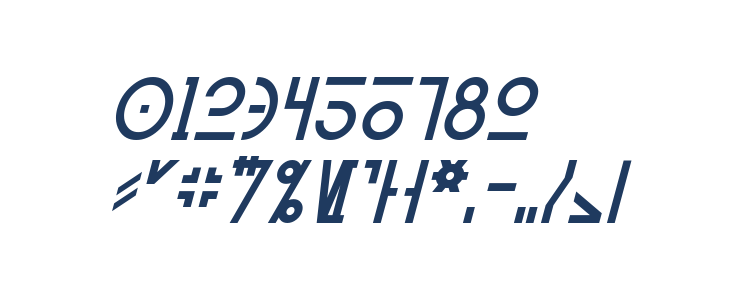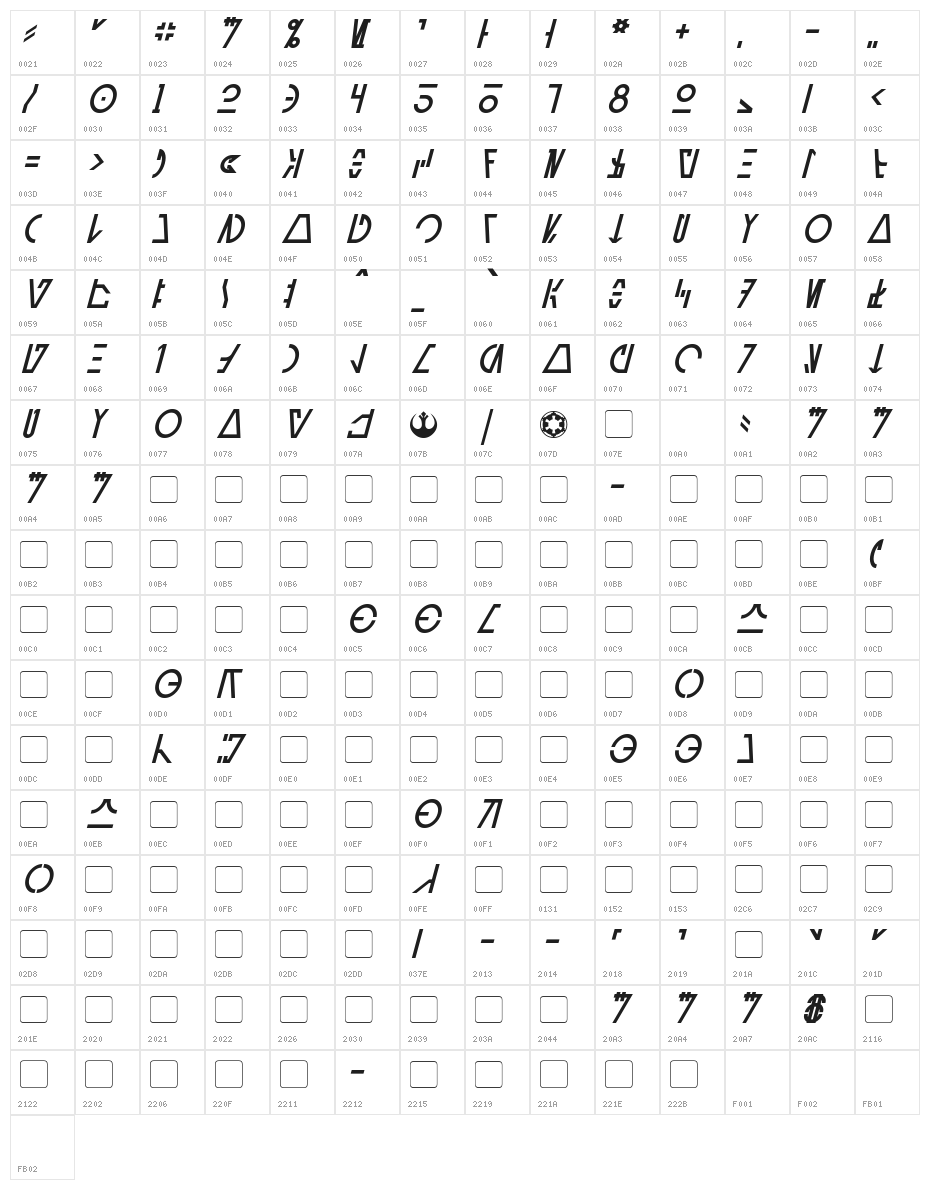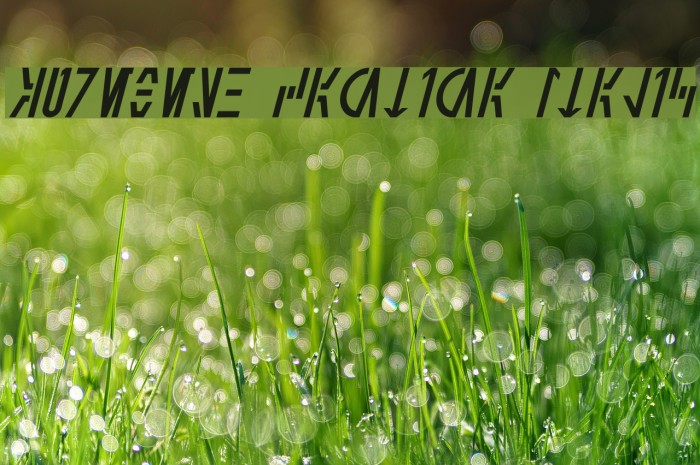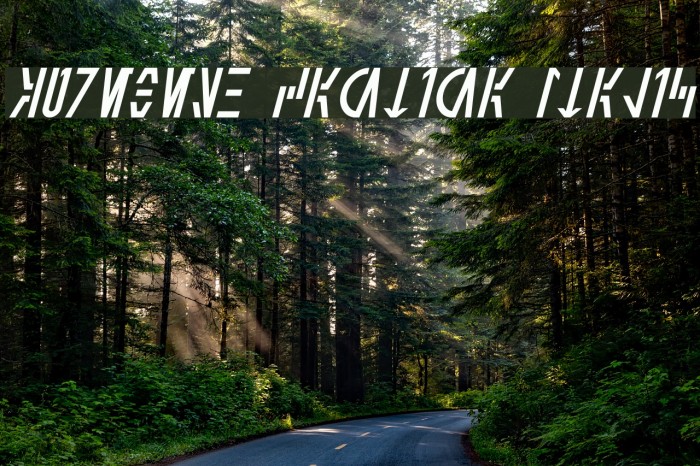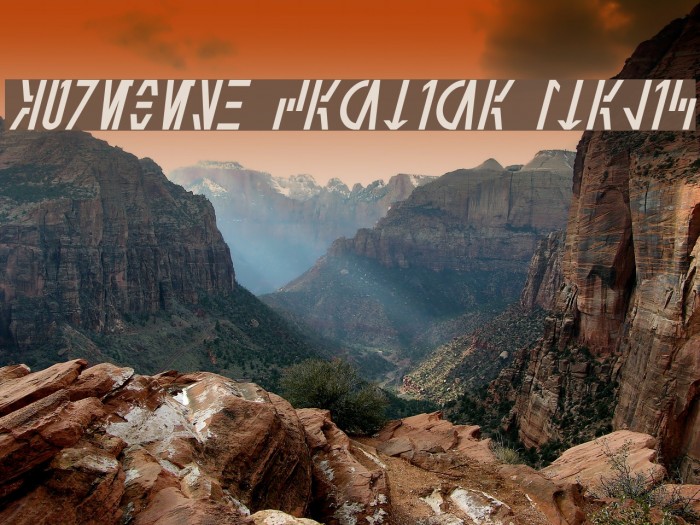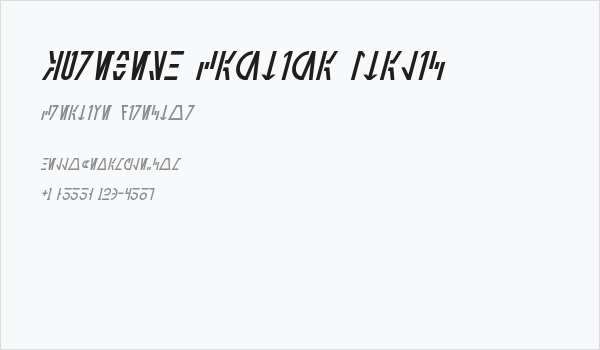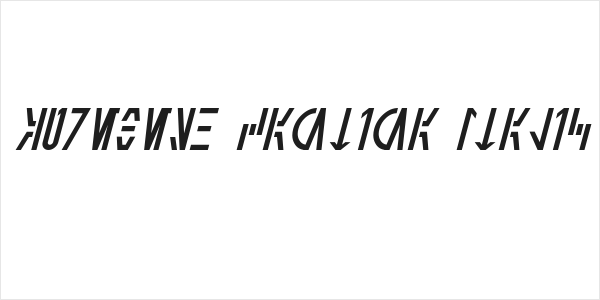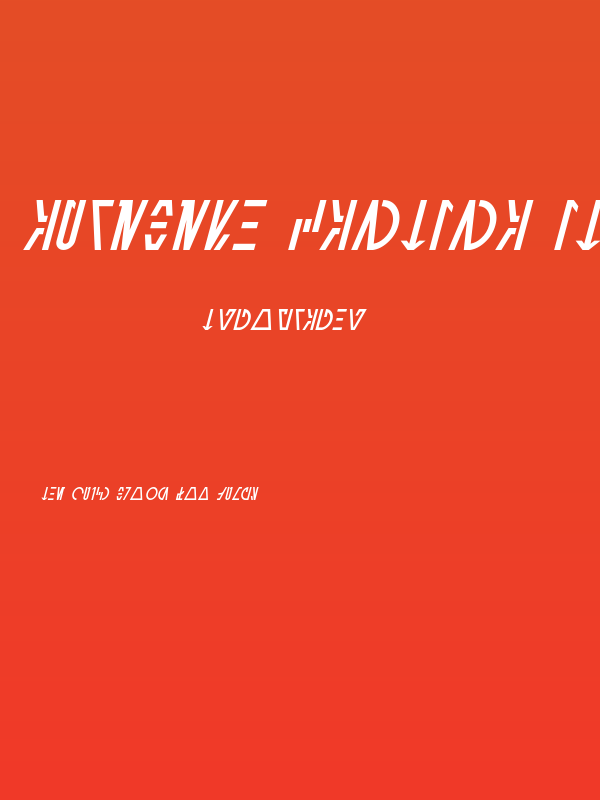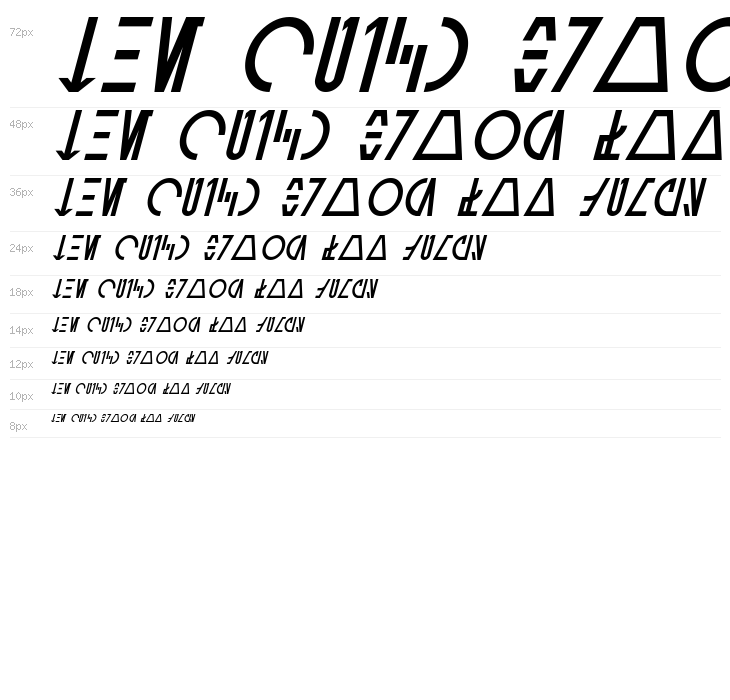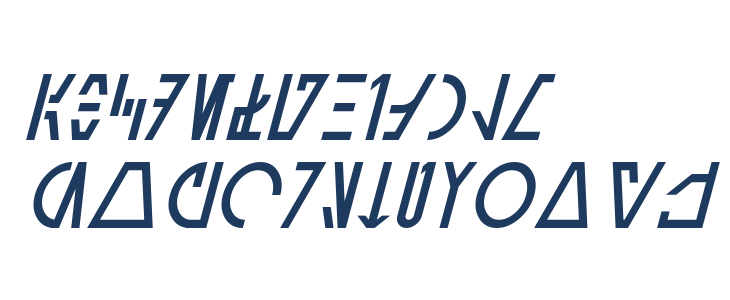
Aurebesh Cantina Italic Font
Aurebesh Cantina Italic Description
This font features a futuristic and angular design, reminiscent of a sci-fi aesthetic. The characters are bold and italicized, with sharp edges and geometric shapes that give it a unique and alien-like appearance. The uppercase and lowercase letters maintain a consistent style, with a slanted orientation that adds to its dynamic look. Numbers and special characters follow the same design principles, ensuring uniformity across the font. The overall style is decorative and modern, making it suitable for projects that require a distinctive and unconventional typeface.
| Proposed Projects | Ideal for sci-fi themed projects, video game interfaces, movie posters, and futuristic branding. |